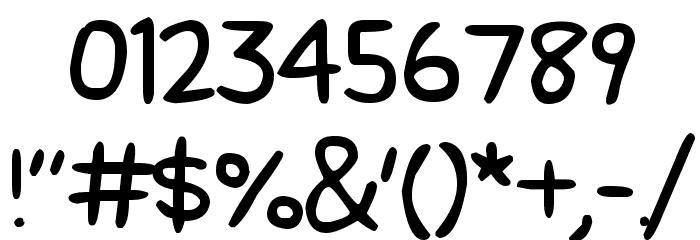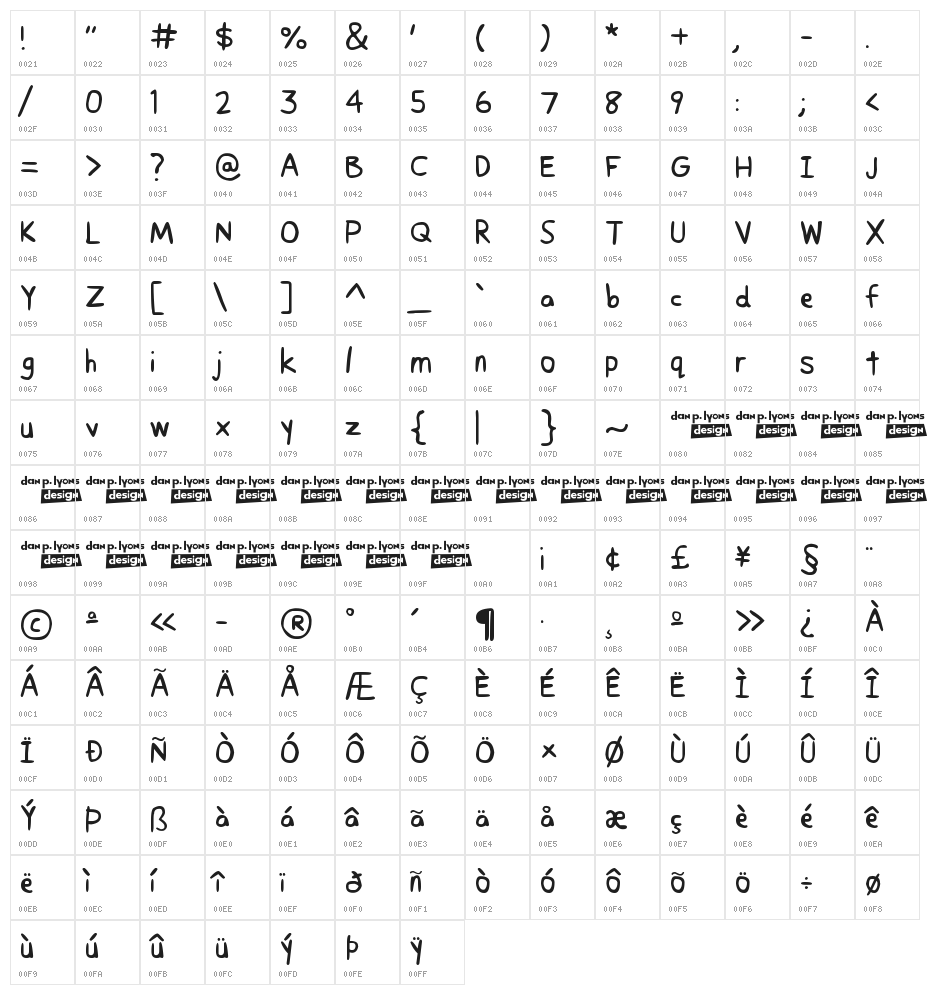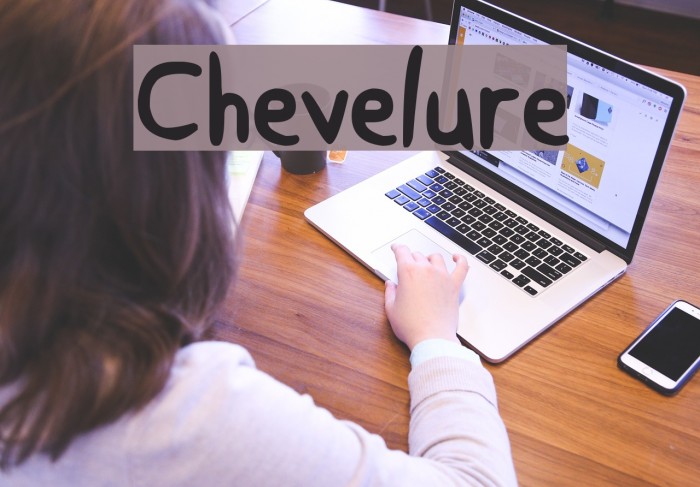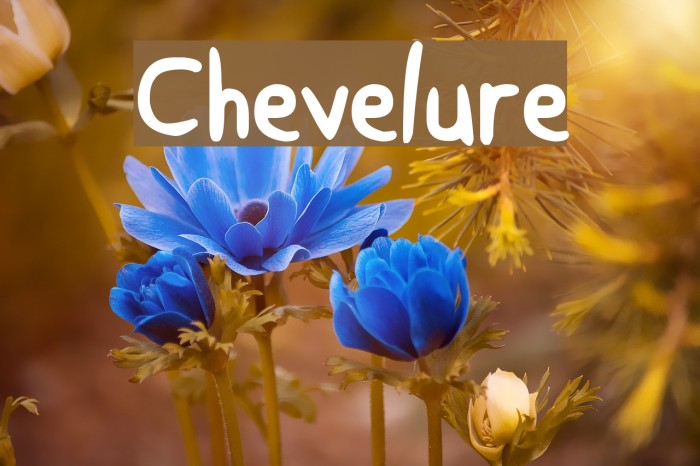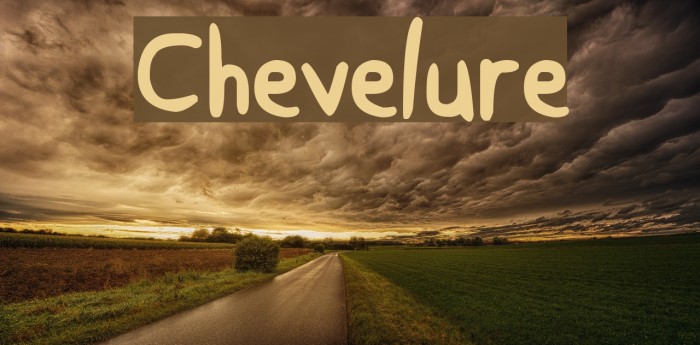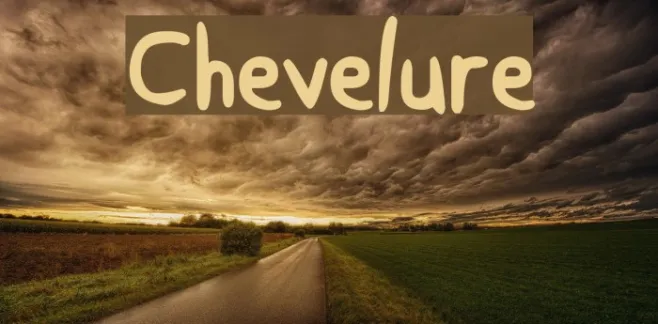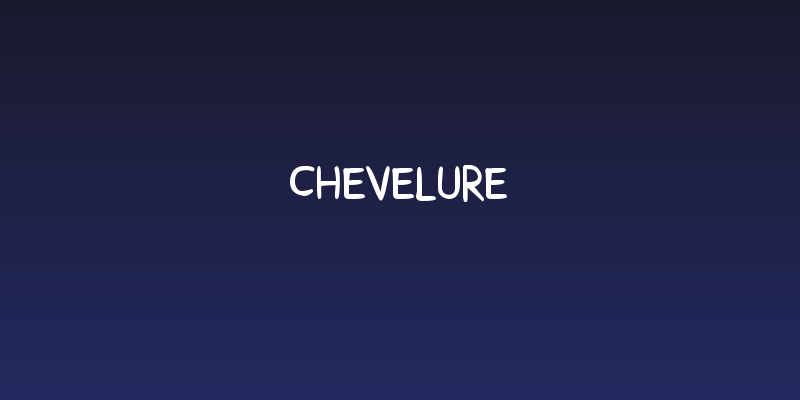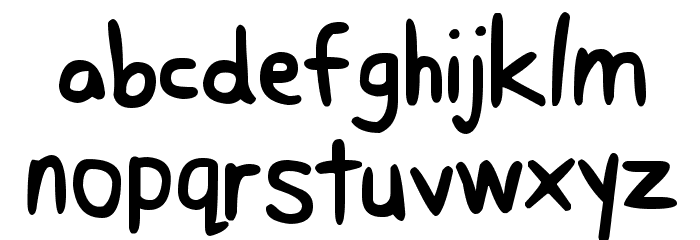
Chevelure Font
Chevelure Description
This font features a playful and informal style with rounded edges and a handwritten appearance. The characters are slightly irregular, adding to the casual and friendly feel. The uppercase letters are bold and prominent, while the lowercase letters maintain a consistent flow, enhancing readability. Numbers and special characters are designed to match the overall aesthetic, making them easily recognizable. The font's unique charm lies in its ability to convey a sense of warmth and approachability, making it suitable for a variety of creative projects.
| Proposed Projects | Ideal for children's books, greeting cards, informal invitations, and playful branding. |